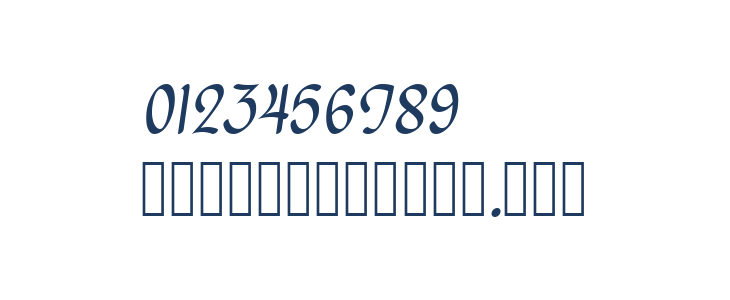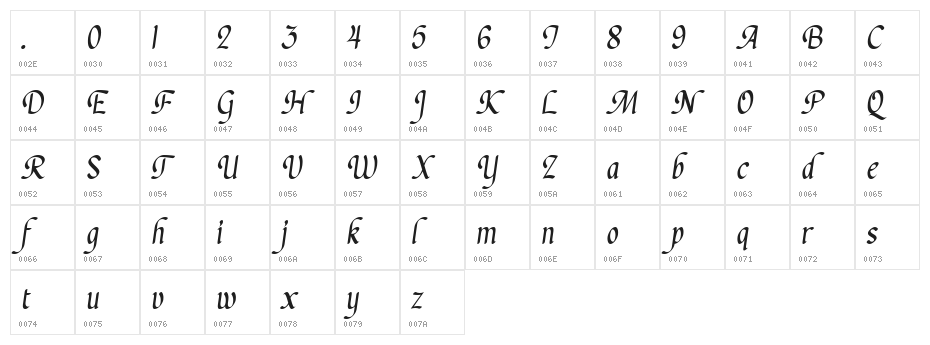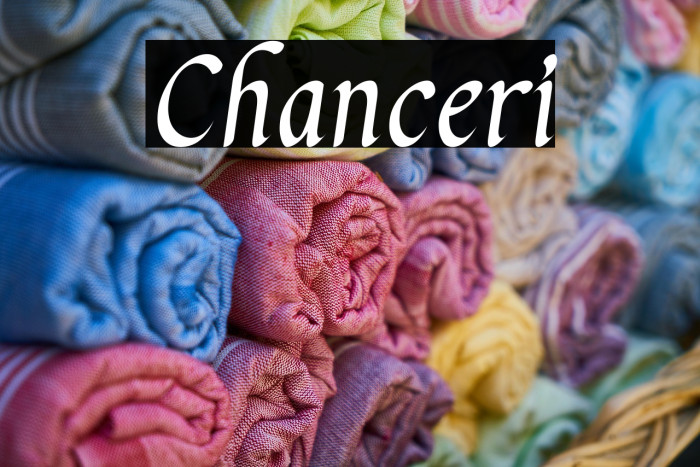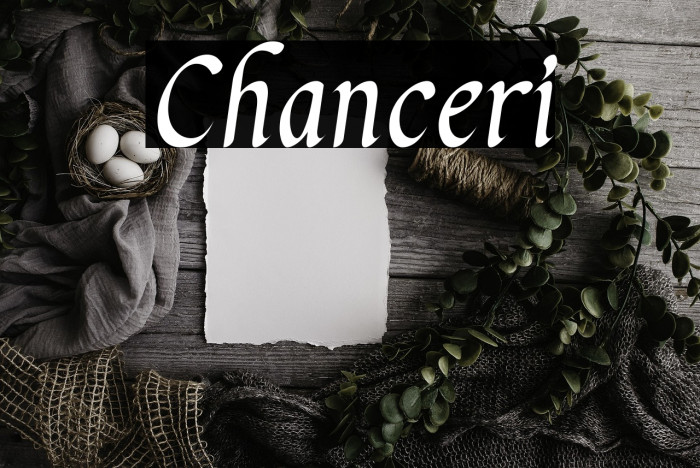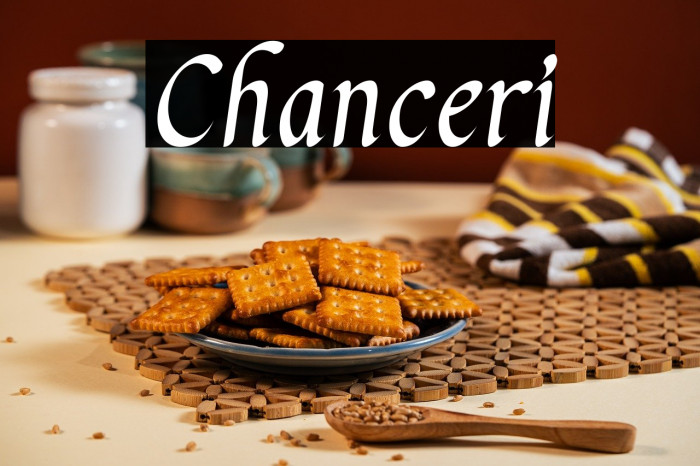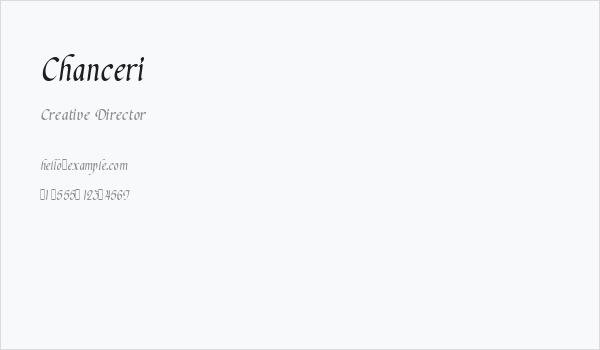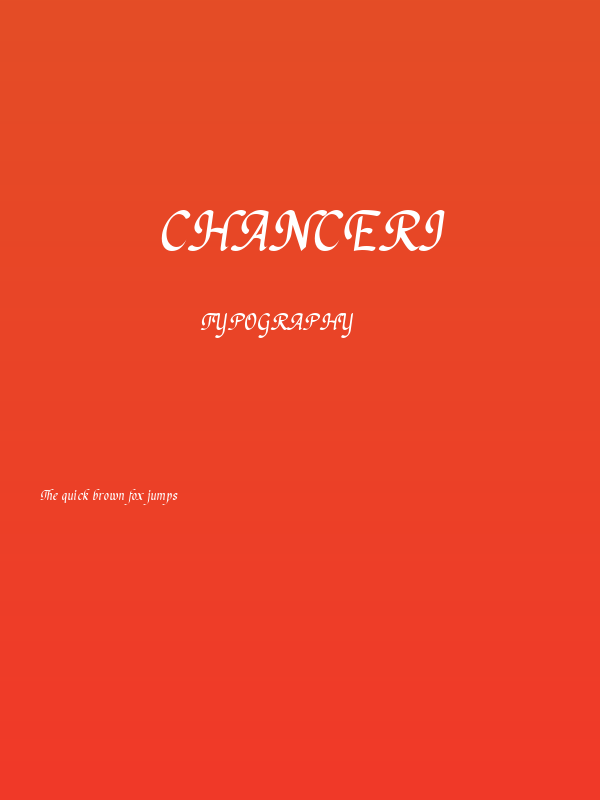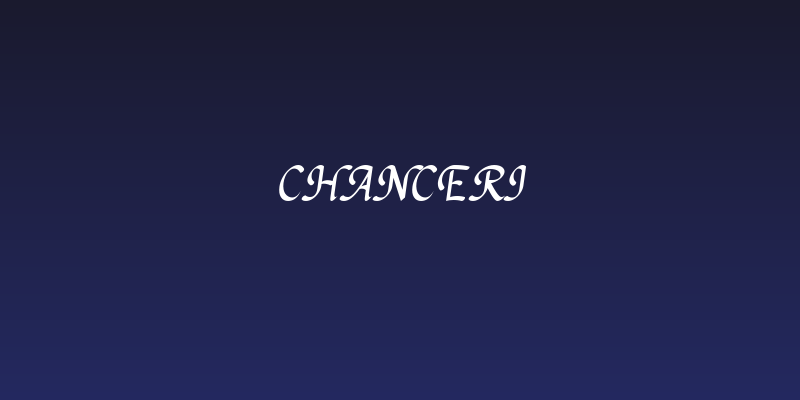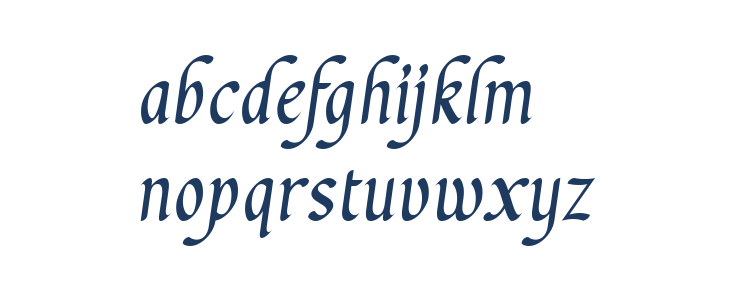
Chanceri Font
Chanceri Description
This font features an elegant and flowing script style, reminiscent of traditional calligraphy. The characters are gracefully connected, with smooth curves and a slight slant, giving it a sophisticated and artistic appearance. The uppercase letters are ornate, with flourishes that add a touch of formality, while the lowercase letters maintain a consistent rhythm and flow. The numerals are styled to match the overall aesthetic, ensuring a cohesive look across all characters. This font is ideal for projects that require a touch of elegance and refinement.
| Use Case | Headlines, Invitations, Artistic designs |
| Proposed Projects | Wedding invitations, formal event programs, elegant branding, and artistic posters. |